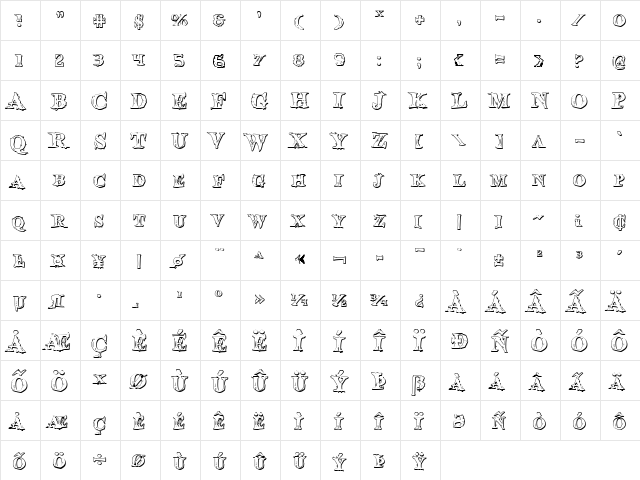
Blood Crow Shadow Regular
Design Context for Blood Crow Shadow Typeface
Blood Crow Shadow carries an unsettling edge — its distorted letterforms are built to unsettle, perfectly suited to horror, Halloween, and dark creative work.
Ideal for Halloween projects, horror film titles, haunted house signage, and dark editorial design.
Font Pairing: Pair with a clean neutral sans-serif for body copy to let Blood Crow Shadow's character lead without overwhelming the composition.
Pro Tip: Blood Crow Shadow works best as a headline or focal element. Pair it against plain, neutral body text to amplify the contrast.